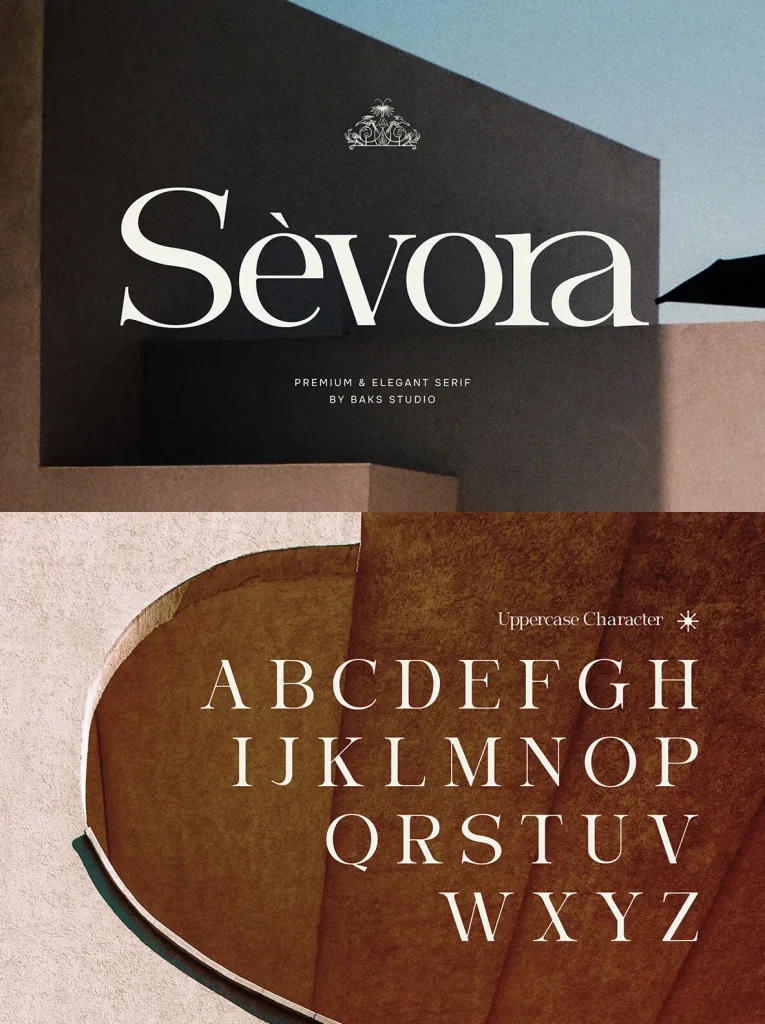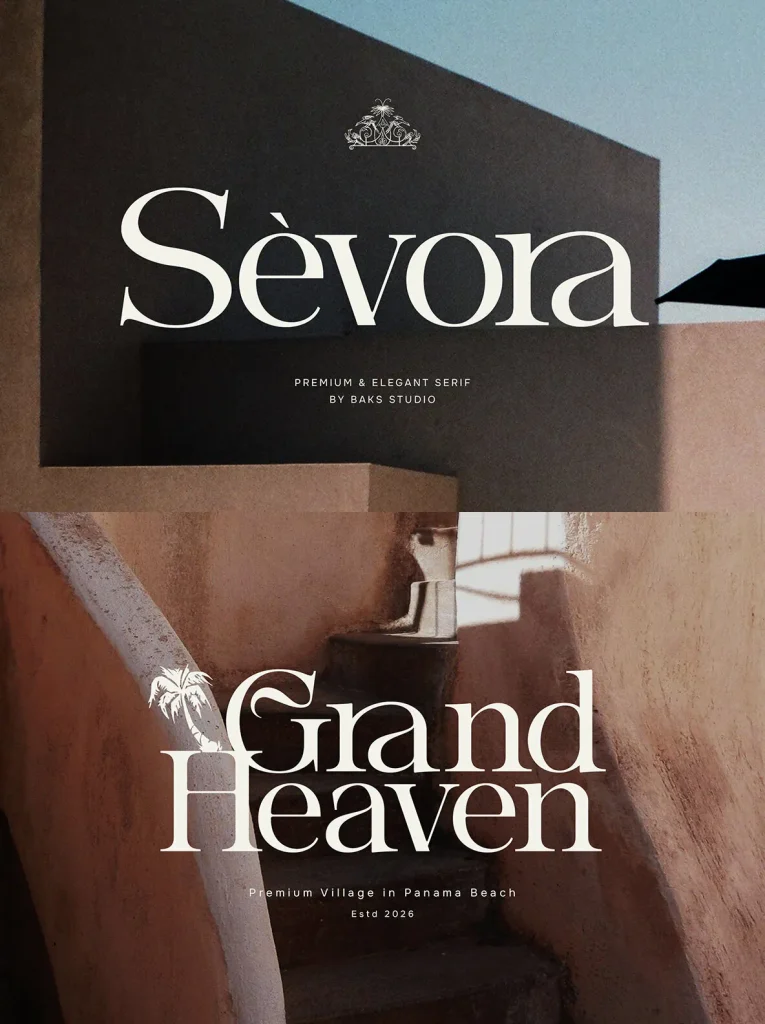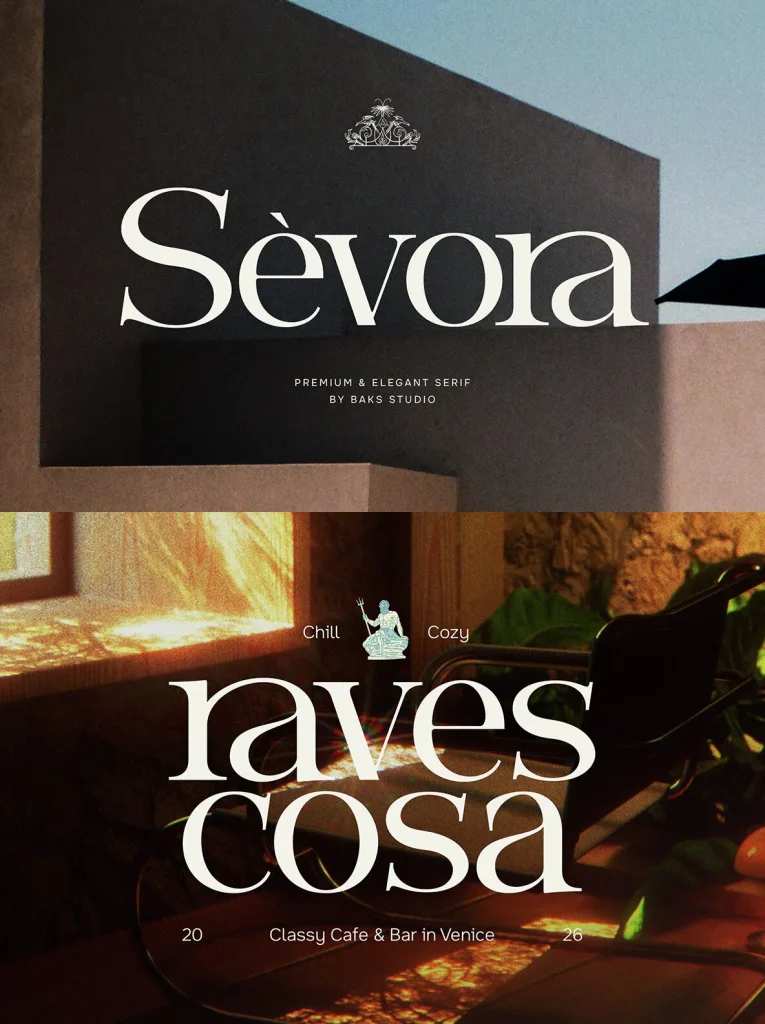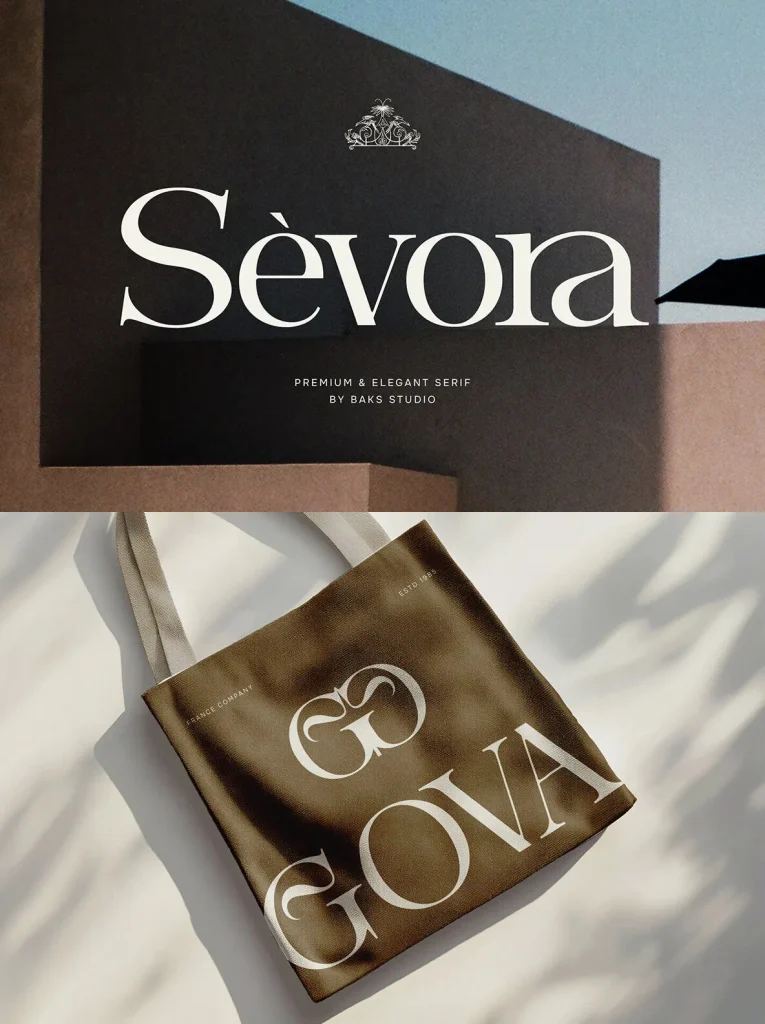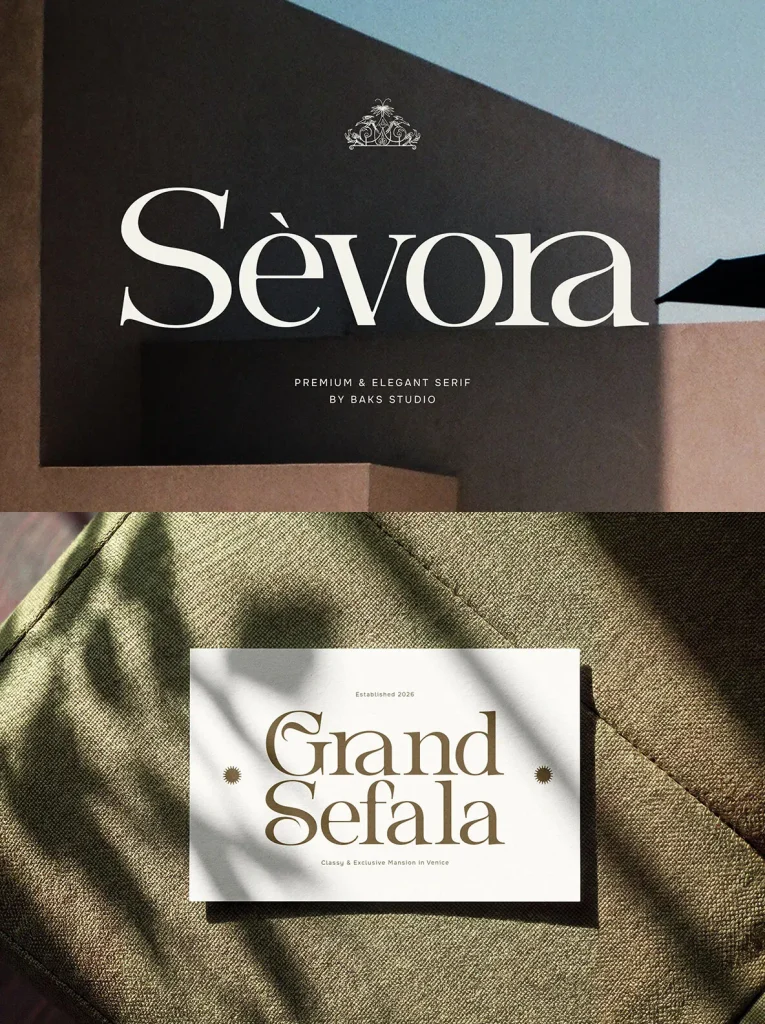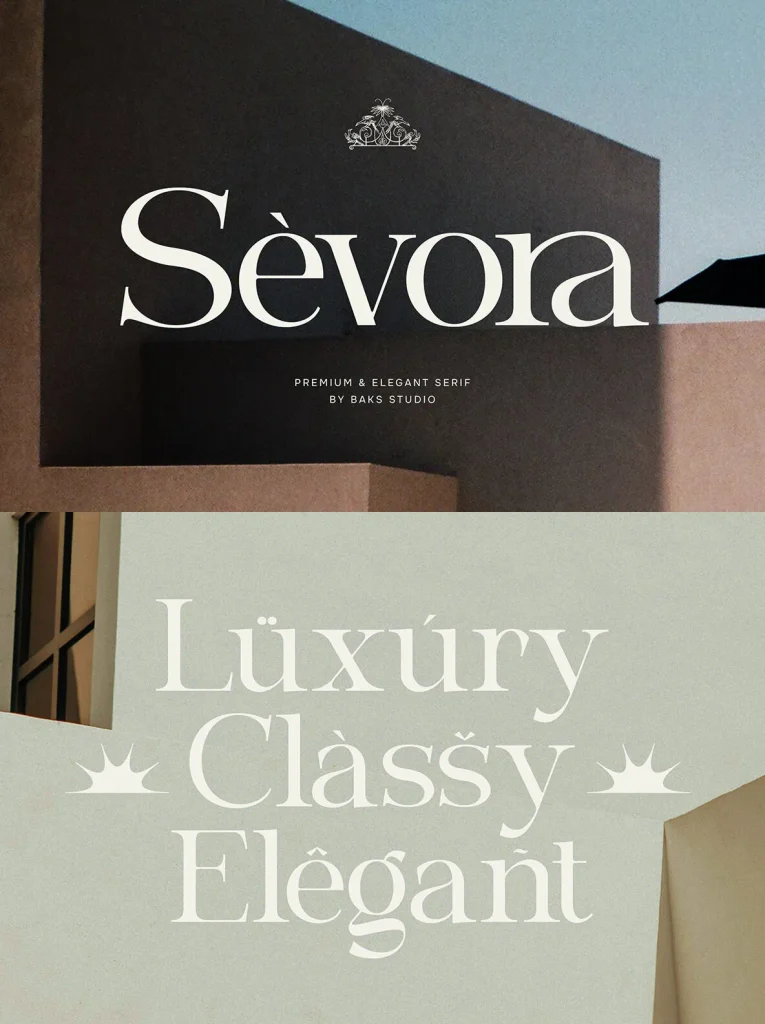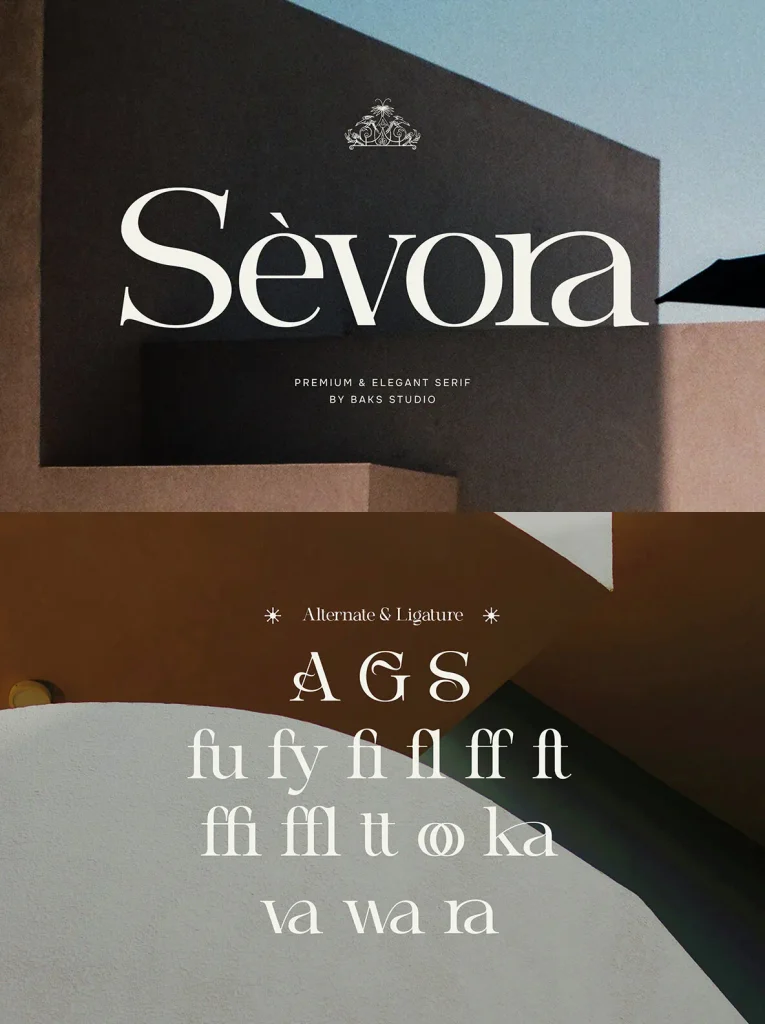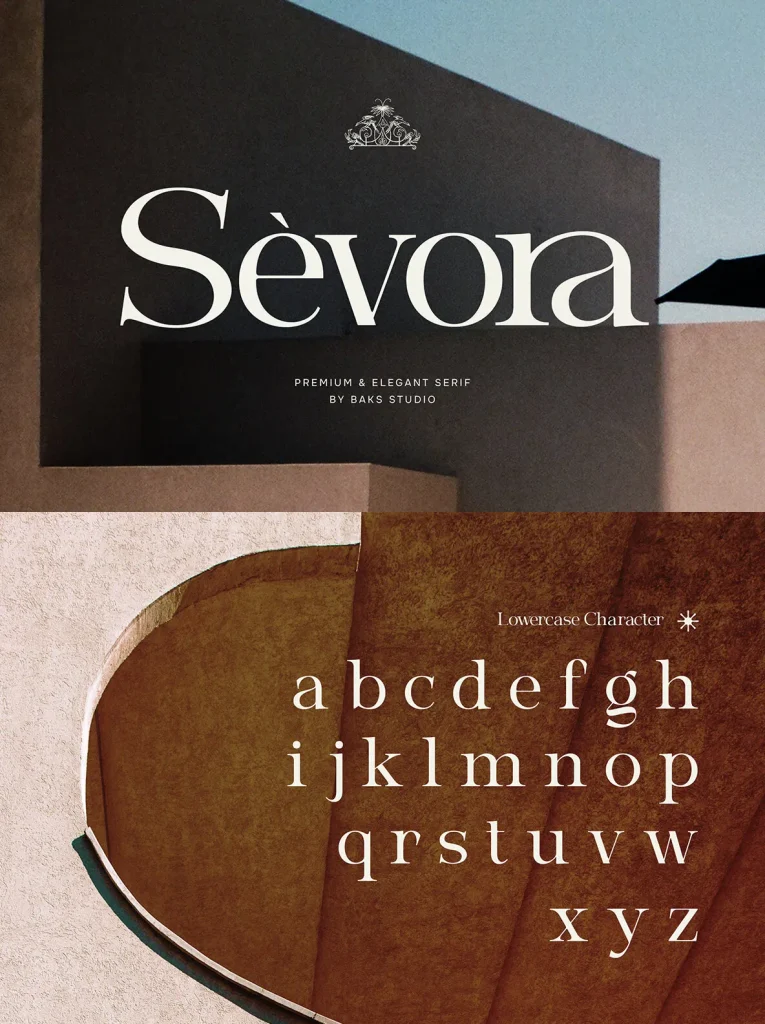
Sevora — Luxury in Fine Contrast
Sevora is a premium serif typeface shaped for timeless elegance and sophisticated luxury. Its refined classic structure carries a modern flair, with high-contrast strokes and exquisite details that give each letter a poised, polished presence.
Meticulously made for the discerning eye, Sevora suits projects that need a high-end, professional finish and a clear sense of refinement. Use it where typography must feel graceful, composed, and visually memorable across branding, editorial design, invitations, packaging, fashion, lifestyle, and aesthetic social media work.
Perfectly Suited For
Logotypes & Branding
Editorial & Magazine Layouts
Wedding Invitations & Stationery
Packaging Design
Fashion & Lifestyle
Aesthetic Social Media